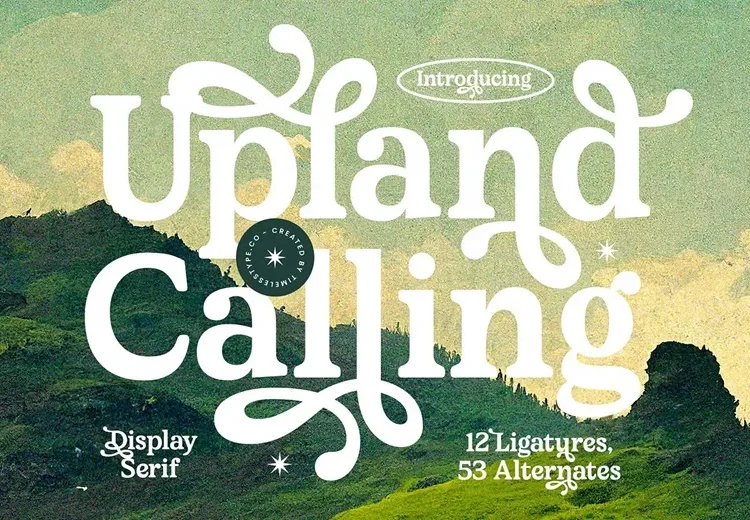
Upland Calling Font
Upland Calling is a stunning retro vintage serif font designed to add a touch of luxury and elegance to any project. With its refined, classic style, it’s perfect for a wide range of design applications, including logos, branding, product packaging, homeware designs, mugs, posters, shopping bags, T-shirts, book covers, invitation cards, greeting cards, labels, and special events. This font is ideal for any creative work that requires a timeless, high-end serif taste.
The font’s vintage charm blends seamlessly with a modern twist, making it a versatile choice for luxury branding and projects that aim to evoke sophistication and class. Whether you’re creating something for a special event or a product that demands attention, Upland Calling ensures your designs stand out with style and refinement.